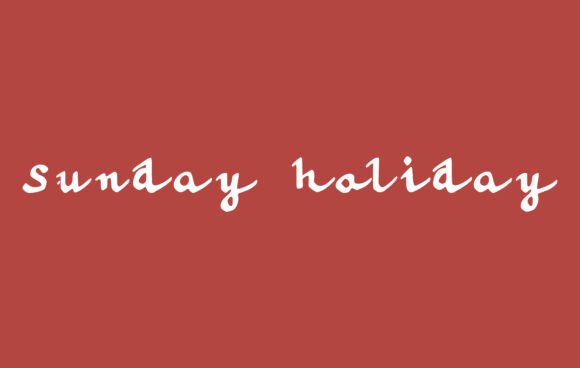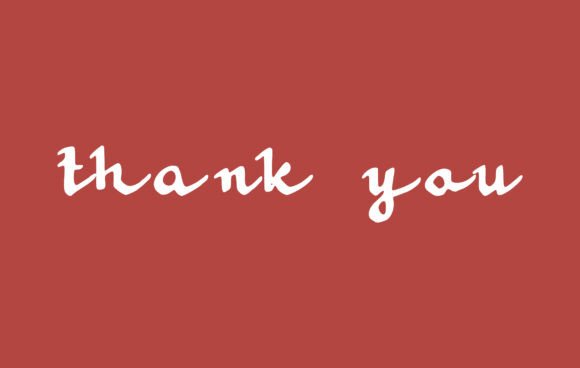
Where Creativity Meets Romance: The Story of Andi Font
Have you ever been brainstorming ideas for a design project and suddenly, a spark of creativity hits you? Maybe it’s the perfect phrase, a beautiful color palette, or a font that transports you to a different era. For designers, these moments of inspiration are what drive us to create something truly special. And for those who have been searching for the perfect font to elevate their work, the answer lies in the authentic, handwritten beauty of Andi Font.
Expertly designed to capture the essence of romance and elegance, Andi Font is more than just a font – it’s a tool to bring your creative ideas to life. Whether you’re crafting magazine headlines, social media posts, or wedding invitations, this versatile font is sure to impress. With its legibility and charming touch, Andi Font is a valuable addition to any designer’s toolkit, helping to take their work to the next level.
Key Features of Andi Font
- Character Set: Andi Font features a comprehensive character set, including Latin, Cyrillic, and Greek alphabets, as well as various symbols and punctuation marks.
- Unique Characteristics: Andi Font is known for its elegant and refined design, with subtle flair and sophistication, making it an ideal choice for creative and professional applications.
Review of Andi Font
As a designer, I was excited to try out the Andi Font, and overall, I have mixed feelings about it.
- Unique and friendly personality: The Andi Font has a distinctive, approachable feel that makes it perfect for informal designs, such as blog posts, social media, or children’s content.
- Legibility: The font is highly legible, even at smaller font sizes, making it suitable for body text or headlines.
- Customization options: Andi Font offers a range of styles and weights, allowing designers to choose the perfect fit for their project.
- Formality: While the Andi Font is great for casual designs, it may not be the best choice for formal or professional projects, where a more serious tone is required.
- Lack of consistency: Some characters, such as the lowercase “a” or “g”, may not be perfectly aligned with the rest of the font, which can be distracting.
In conclusion, the Andi Font is a solid choice for designers working on informal projects. While it has its limitations, its unique personality and high legibility make it a great addition to any designer’s toolkit.
Andi Font is perfect for creating modern and elegant designs in Canva, especially for headings and titles.
Andi Font is ideal for creating high-end designs in Adobe Photoshop or Illustrator, especially for typography-based projects.
Andi Font is perfect for creating professional-looking presentations and documents in PowerPoint or Word.
Andi Font is suitable for a variety of design projects, including:
Headings and titles
Body text for modern and elegant designs
Typography-based projects
Professional presentations and documents
The recommended font size for Andi Font is between 12 and 16 pixels, with a line height of 1.2 to 1.5 times the font size. This will provide optimal legibility and readability in digital interfaces.
Can Andi Font be customized or modified for specific design projects?